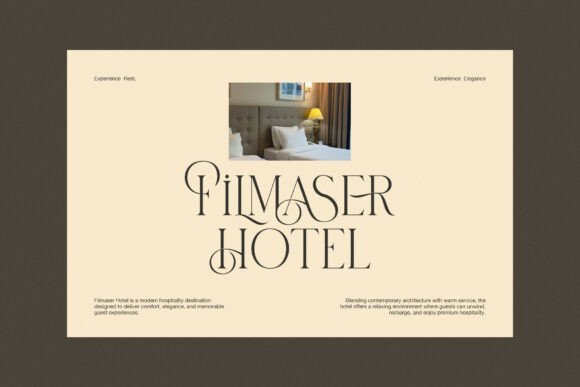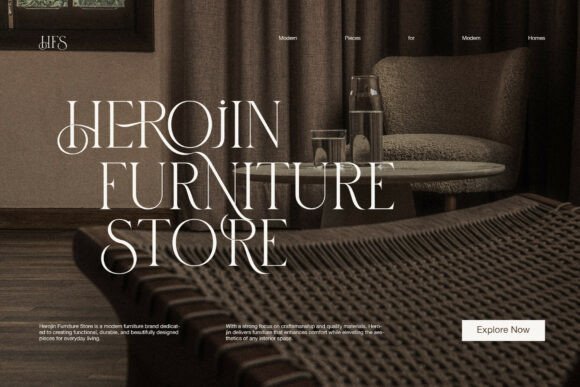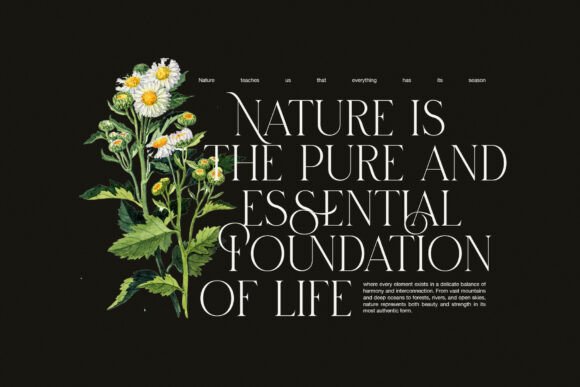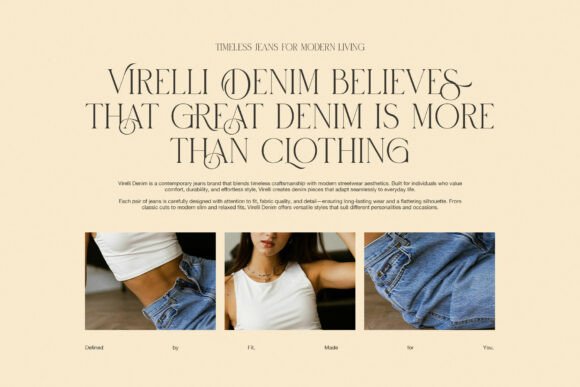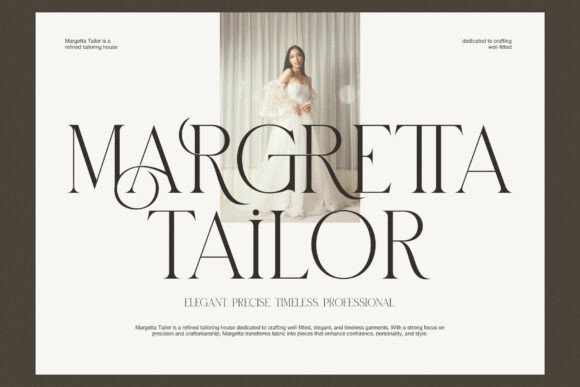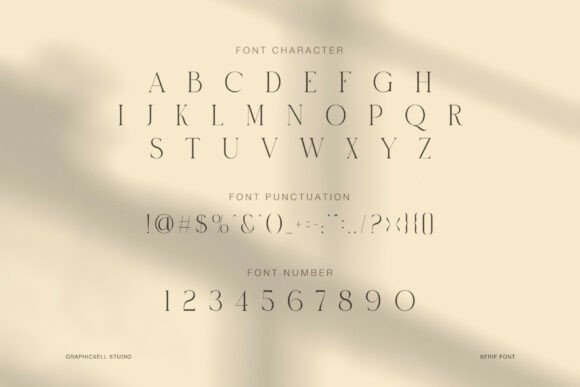
Biges Font: Elevate Your Designs with Elegance and Sophistication
In the world of typography, fonts play a crucial role in conveying the tone and personality of a brand or design. Among the numerous fonts available, Biges Font stands out for its unique blend of clean serif details and elegant swashes. This stunning font is perfect for designers and crafters looking to add a touch of sophistication and style to their work.
Clean Serif Details and Graceful Swashes
Biges Font boasts clean serif details that provide a sense of clarity and precision. The font’s serif elements are carefully crafted to add a level of refinement to any text, making it ideal for designs that require a high-end feel. What sets Biges apart, however, is its beautiful swashes that flow across selected letters. These swashes add a touch of elegance and flair, transforming simple words into stylish display typography.
A Soft yet Strong Visual Voice
One of the defining characteristics of Biges Font is its unique balance of softness and strength. The font’s design feels soft and approachable, yet it still maintains a strong visual voice that demands attention. This balance makes Biges versatile and suitable for a wide range of design applications, from logos and headlines to brand names and packaging.
Slim, Balanced, and Classy Uppercase Letters
The uppercase letters in Biges Font are particularly noteworthy for their slim, balanced, and classy appearance. These letters are designed to make a statement, exuding a sense of sophistication and refinement. Whether used in a logo, headline, or brand name, the uppercase letters in Biges Font are sure to elevate your design and leave a lasting impression.
Wide Spacing for a Calm and High-End Feel
Another key feature of Biges Font is its wide spacing, which gives each word a calm and high-end feel. The generous spacing between letters allows the text to breathe, creating a sense of luxury and refinement. This makes Biges Font particularly well-suited for designs that require a polished and sophisticated look, such as high-end branding, advertising, and editorial design.
Ideal for Logos, Headlines, and Brand Names
Biges Font is a versatile font that can be used in a variety of design applications. However, it is particularly well-suited for logos, headlines, and brand names that require a polished and sophisticated look. Whether you’re designing a logo for a luxury brand, creating a headline for a high-end magazine, or developing a brand name for a premium product, Biges Font is an excellent choice.
Why Choose Biges Font?
- Elegant and sophisticated design: Biges Font boasts a unique blend of clean serif details and elegant swashes, making it perfect for designs that require a high-end feel.
- Versatile and flexible: Biges Font can be used in a wide range of design applications, from logos and headlines to brand names and packaging.
- Strong visual voice: Despite its soft and approachable feel, Biges Font still maintains a strong visual voice that demands attention.
- Easy to read: The clean serif details and wide spacing in Biges Font make it easy to read, even at small sizes.
In conclusion, Biges Font is a stunning font that offers a unique blend of elegance, sophistication, and versatility. Its clean serif details, graceful swashes, and wide spacing make it perfect for designs that require a polished and high-end look. Whether you’re a designer, crafter, or simply someone looking for a beautiful font to elevate your work, Biges Font is an excellent choice. So why not give it a try and see the difference it can make in your designs?